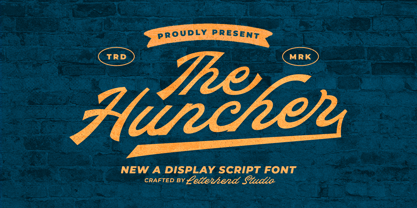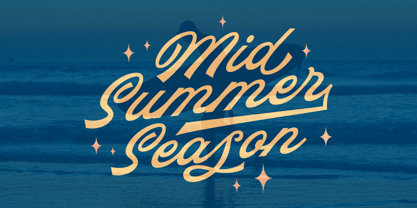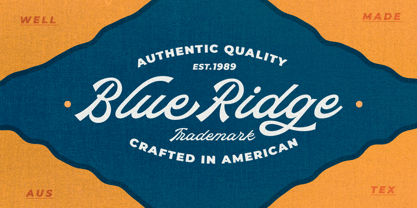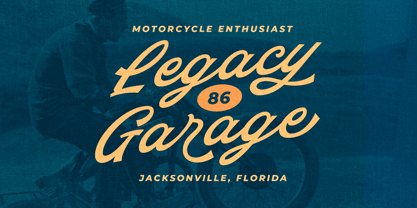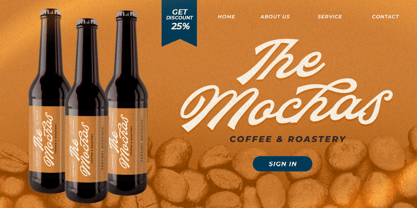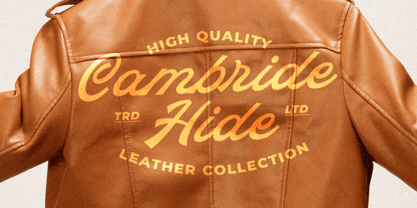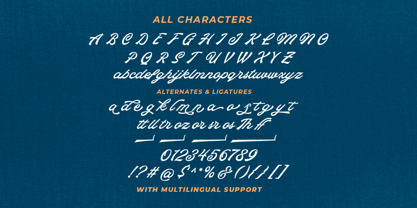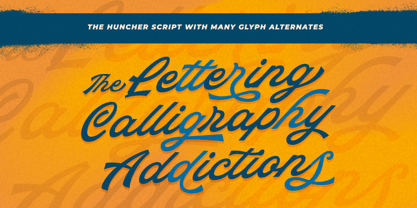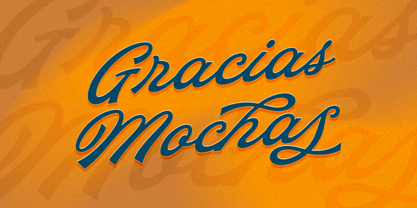
The Huncher
by Letterhend
The The Huncher Font Family was designed by Hendry Juanda and published by Letterhend. The Huncher contains 1 styles. More about this family
The Huncher Script is a brand new display script font. You can play around with alternates character. This font perfectly made to be applied especially in logo, and the other various formal forms such as invitations, labels, logos, magazines, books, greeting / wedding cards, packaging, fashion, make up, stationery, novels, labels or any type of advertising purpose.
Features :
• Uppercase & lowercase
• Numbers and punctuation
• Alternates & Ligatures
• Multilingual Support
Designers: Hendry Juanda
Foundry: Letterhend